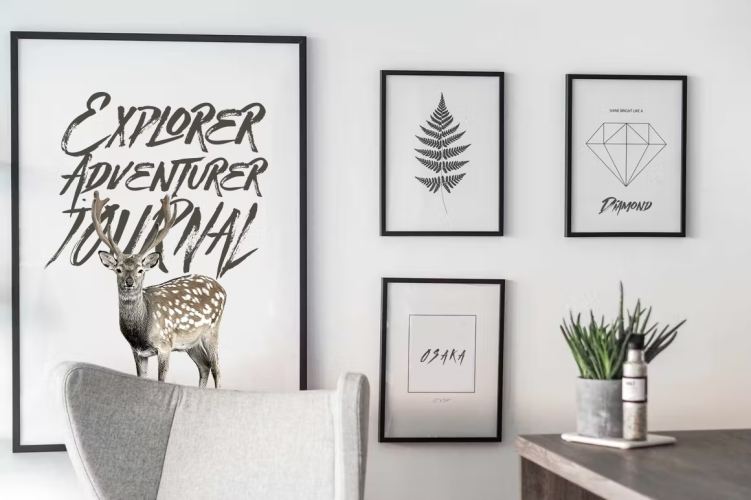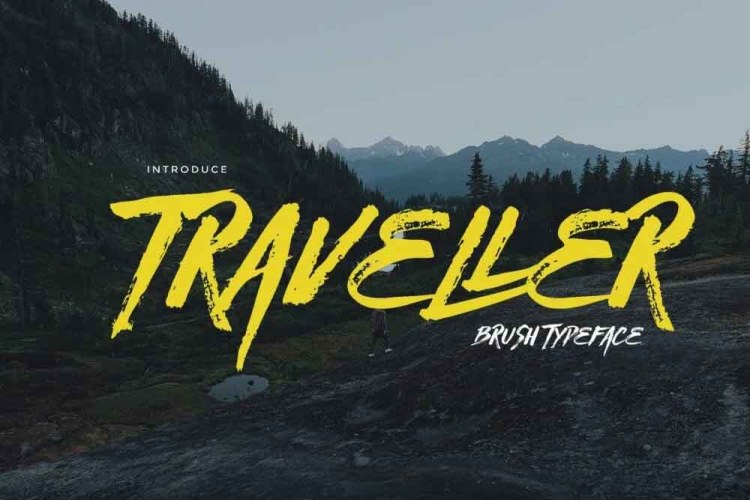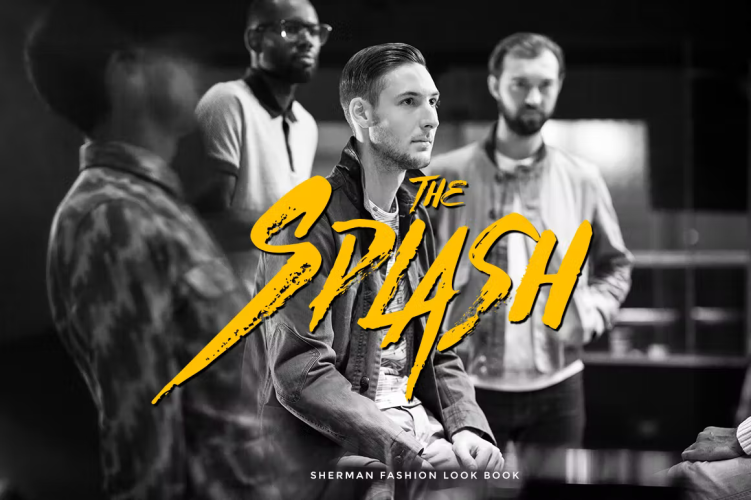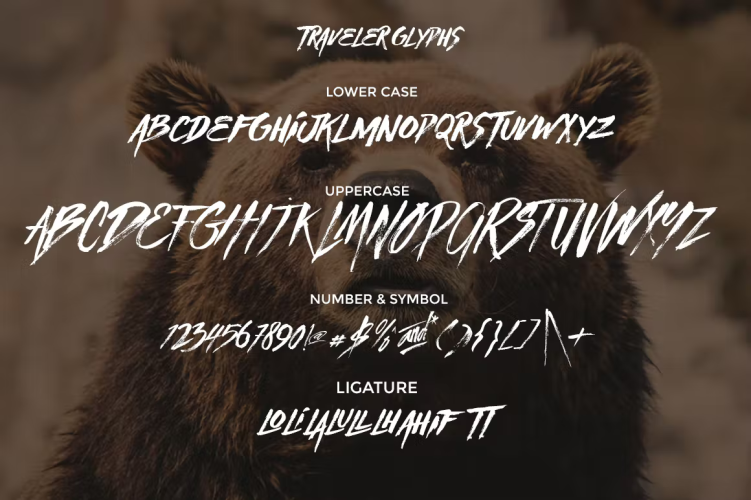
Traveller Font
Traveller Font made from brush hand-drawn look, with subtle baseline adventure concept, bold character, cool ligatures. Perfect for logo marks, typographic quotes, packaging, blog headline, and many more with Cool ligature could make unique characters, please view the display sample.
Where Traveller Font works best
Traveller Font brings a personal, handwritten warmth to invitations, menus and place cards.
Craft brands — coffee, cosmetics, bakery — use scripts like Traveller Font for signature-style logos and labels.
Pair Traveller Font with a plain sans for quotes, stories and Pinterest pins that feel handmade.
What is Traveller Font good for?
Traveller Font is a Script And Handwritten typeface tagged Bold, Branding, Display, Handwritten. It works well for headlines, logos, posters, social media graphics and branding projects that need a distinctive script and handwritten look.